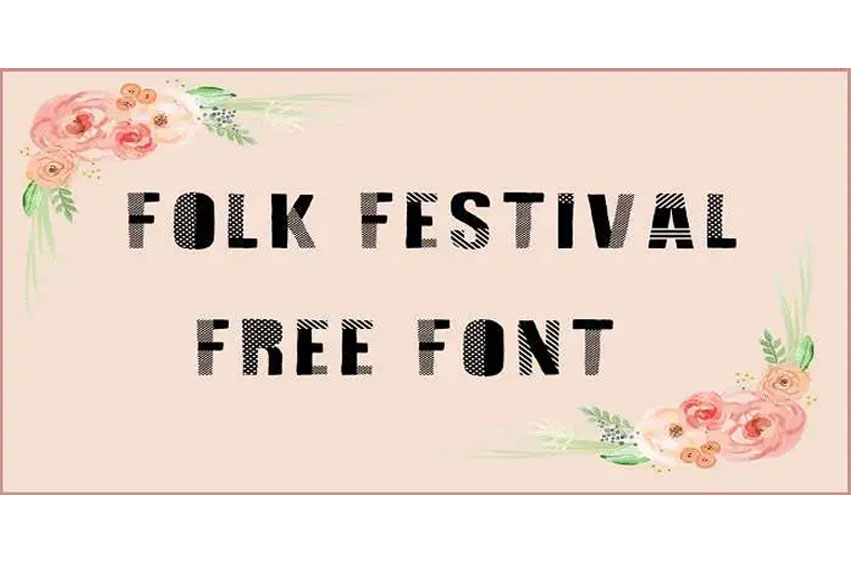
Folk Festival Font is a high quality Decorative font that was created by imagex and is available for free downloading and personal usage.
The free version offers all the letters in both uppercase and lowercase and just a few other symbols.